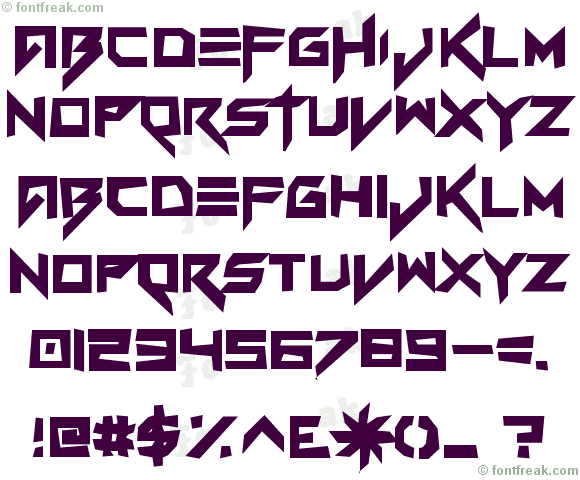
Vermin Vibes Corrupto
About Vermin Vibes Corrupto
Vermin Vibes Corrupto is a striking display typeface designed by Andrew McCluskey in 2014. This font falls under the decorative style category, characterized by its bold and edgy appearance. The unique letterforms feature irregular, jagged edges and a heavy stroke weight, creating a sense of dynamism and unpredictability. The contrast between thick and thin lines adds a captivating visual interest, while the ample spacing between characters ensures readability, even in larger text formats. Its overall vibe resonates with a rebellious spirit, making it an excellent choice for design projects that aim to stand out.
The Vermin Vibes Corrupto font excels in various creative applications. It is particularly suited for eye-catching movie posters, where its bold aesthetics can convey intense emotions and themes. This typeface also works well for urban streetwear branding, giving a modern and edgy feel to logos and merchandise. Additionally, it can enhance the design of music event flyers, providing a gritty yet stylish look that attracts attention. For graphic designers working on digital content, this font adds a unique flavor to social media graphics and website headers, making them more memorable. Small business owners and content creators looking to infuse their projects with a distinctive edge will find this font invaluable.
What sets the Vermin Vibes Corrupto font apart is its ability to evoke emotion while remaining functional. Its boldness does not compromise readability, making it versatile for various media. This font is perfect for those seeking to make a statement without sacrificing clarity. With its distinctive style and free license, the Vermin Vibes Corrupto font free download is an excellent addition to any designer's toolkit, allowing for creativity to flourish in innovative ways.